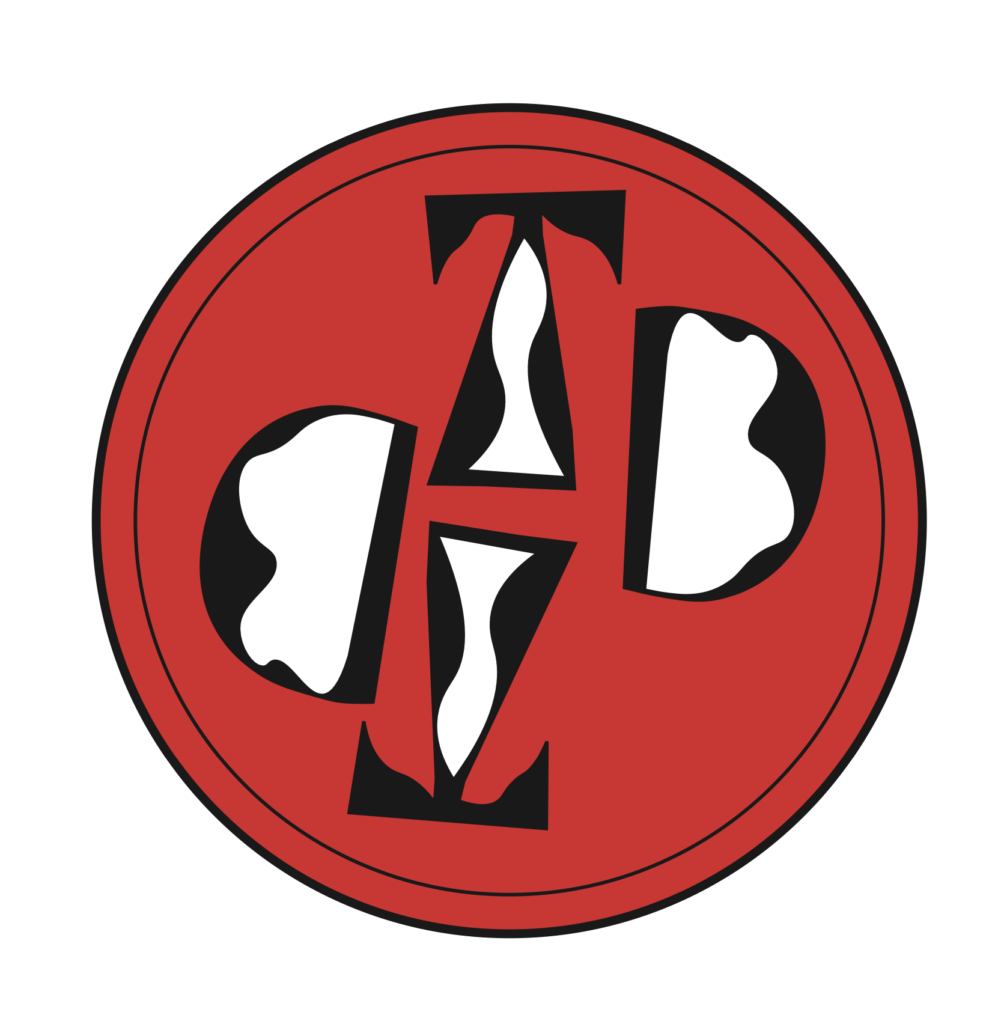
Manipulating letter format in Illustrator
Design ideas and design process
This Illustrator task encouraged me to explore how the tools can be used to manipulate letters in various unique ways.
Design Idea 1
In this letter logo, I focused on using the envelope distortion and pen tool. I began by drawing a custom shape which then warped the initials into a distorted shape when clicking the envelope distortion tool. Duplicating these initials and positioning them above the original set of letters afterwards, resulted in an aesthetically pleasing letter logo.
Design Idea 2
In my second design, I combined two different fonts together, Savoye led plain and Srisakdi. I further experimented with various line weights and colour combinations using the colour swatches and used a brush definition of a charcoal feather for the initials to highlight them as the focal point.
Design Idea 3
My third design for this task I believe is my most successful as it allowed me to expand my skills within illustrator even further and shift my design skills out of my comfort zone by using the curvature tool to a higher standard and through using the transform tools to complete the logo.
I began by adding my letters which were written in a serif font and made these letters outlines to allow me to change and adapt the format/shape of the letter entirely.
After manipulating both letters I discovered that the letter D due to having an internal shape within the centre led the letter T to looked very different in comparison so to resolve this issue I added a triangle shape into the middle of the T and used the curvature tool to match the T with the curve style seen in the letter D.
This design task allowed me to experiment with the colour swatch palette, I attempted to experiment with extreme colours and display how contrasts can be used to bring out the contents within a shape. I approached this idea by filling the circle shape with a bright red colour as this brought out both the colour black and white used for the letters.
Then I duplicated the 2 letters and altered the size of the letters and positioning using the transformation tools resulting in a more appropriate layout for a letter logo.
To complete the logo, I added another eclipse shape with a weight of 2pt compared to the outside eclipse which had a weight of 5pts, this helped develop the logo even further. This design idea for the task is the most effective as it shows a range of variations between layout, shapes, and line thickness
I read a design article to expand my knowledge on the various text effects in Illustrator, the article described how the effects can influence the texts shape, format, or overall look. The article influenced me to see how each of the 3 designs could use different formats, effects and colours which would result in a unique, contrasting letter logo which shows contrasts when placed aside different type logos.
After seeing one of the text effects included in the article titled grainy & shaded type it encouraged me to change my type in my second design to use a brush definition of a charcoal feather. This led the initials to seem printed/painted on which I believe could bring curiosity if seen by audience members as this effect contrasts with the computerised lines created with the pen tool.
An additional article I read was on warping text which provided me with tips, one being on adjusting the spacing between objects before wrapping the text and use a clipping mask when you want the text to flow around a complex shape, such as I the one drew in my first design idea.
Learning throughout the module
Throughout this spring term module, I have increased my knowledge of using adobe software and this is reflected in my quiz results improving from last term’s. However, I did guess two of the answers within the quiz which asked questions on more advanced technicalities within the adobe software, such as, what to save certain files as, so to improve I will research each of the software’s pre-sets and save settings.
Last term I also received feedback to explore vector-based work, I believe I successfully achieved developing my skills within this area by choosing a task which specifically asked for vector objects to be drawn. I will push myself to continue to explore using vector-based work in the future.